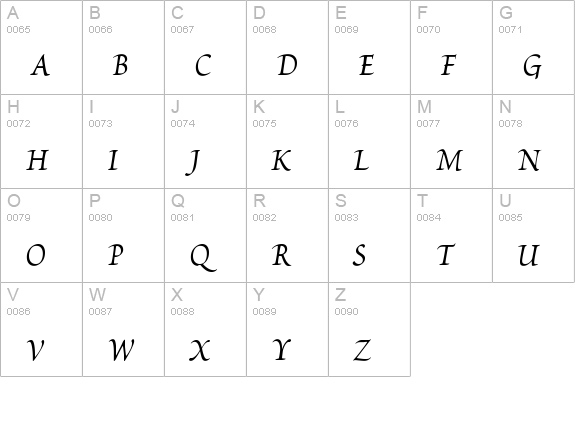
Poetica Chancery II Font Details
Poetica Chancery II font is a beautifully crafted typeface that exudes elegance and sophistication. Its delicate and flowing strokes give a sense of timeless beauty, making it perfect for adding a touch of refinement to any project. The font's intricate details and classic design make it a versatile choice for various creative endeavors, from invitations to branding materials. What sets Poetica Chancery II font apart is not only its aesthetic appeal but also its accessibility. This exquisite font is available for free download at FontsMarket.com, allowing designers and enthusiasts alike to easily access its charm and grace. Whether you're looking to elevate your designs with a touch of class or simply appreciate the artistry of typography, Poetica Chancery II font is a must-have addition to your font collection.